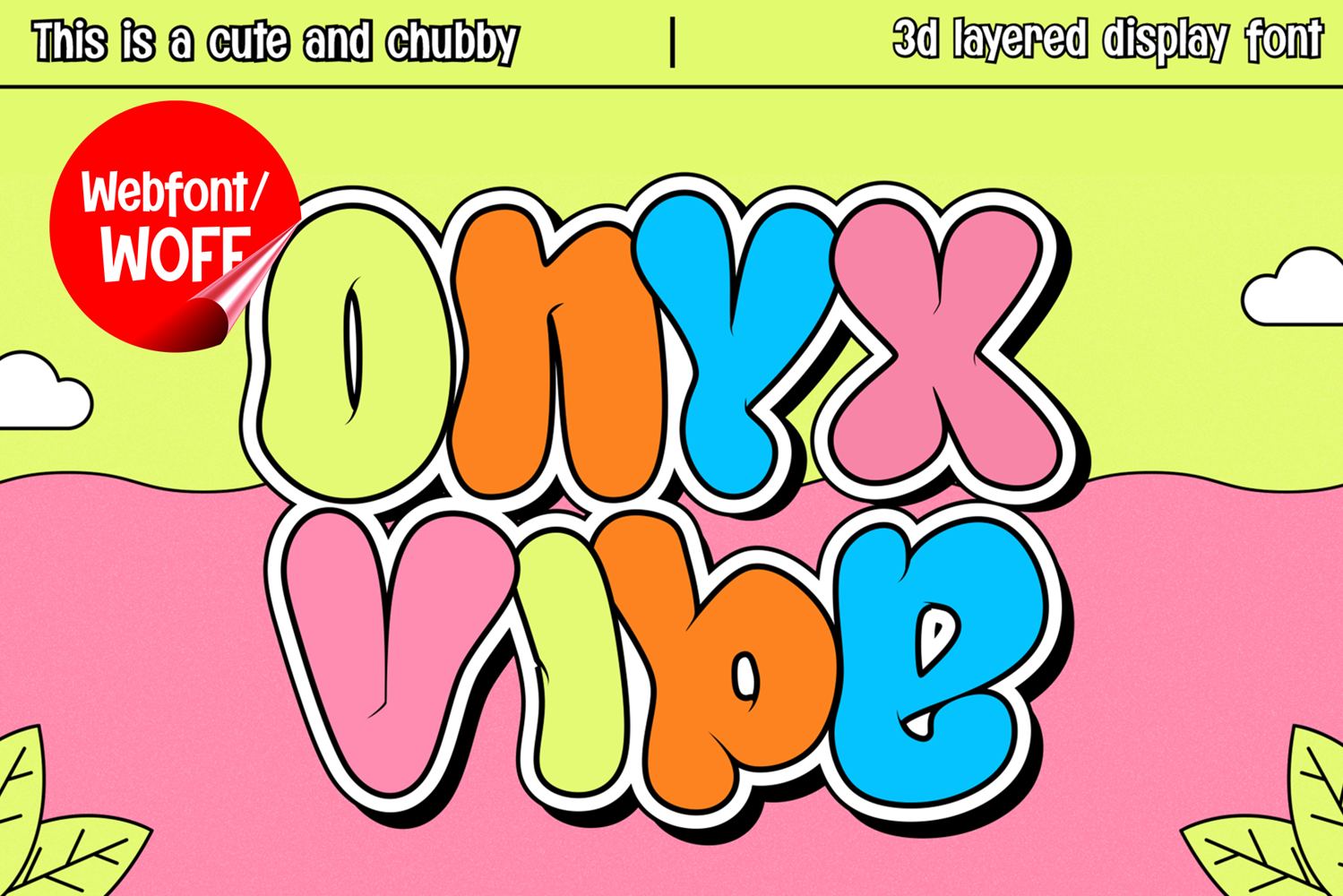
Onyx Vibe | Cute Layered 3D Webfont for Fun Creative Design
Onyx Vibe is a cute layered 3D webfont designed to bring playful creativity and dimensional style into modern website design. Inspired by bubbly typography, cartoon lettering, and layered display aesthetics, this font features rounded shapes and eye-catching depth that create a cheerful and engaging visual identity. It is an excellent choice for projects that aim to deliver a fun, stylish, and visually appealing typographic appearance.
Onyx Vibe includes a complete set of uppercase characters designed with cute layered 3D aesthetics. The letterforms feature chunky curves, playful proportions, and dimensional layering that create a lively and modern appearance. These characteristics make it ideal for headlines, banners, hero sections, product displays, and featured content where a cheerful and eye-catching visual style is needed.
In addition to letters, the font includes numbers and punctuation, allowing flexible usage across various parts of a website. It works well for children’s websites, toy branding, candy shops, lifestyle blogs, party invitations, creative campaigns, and social media graphics. Each character maintains a consistent layered 3D style, ensuring a cohesive and unified visual identity throughout the design.
With multilingual support, Onyx Vibe includes a wide range of accented characters, making it suitable for international websites and global audiences. This ensures content remains clear and visually consistent across different languages while preserving the playful and decorative aesthetic.
The cute layered 3D style of Onyx Vibe makes it especially suitable for kids’ brands, entertainment projects, colorful digital campaigns, cartoon-themed websites, and family-oriented businesses. Its dimensional structure and rounded forms create a joyful atmosphere that helps websites stand out in visually competitive environments. The layered depth adds visual excitement while maintaining a soft and friendly appearance.
Despite its decorative and playful appearance, Onyx Vibe is designed with readability in mind. The spacing and proportions are carefully balanced to ensure clarity, particularly in display sizes. This allows designers to use the font effectively for impactful headings and short content without sacrificing usability.
Onyx Vibe is a webfont that combines cute layered aesthetics with modern digital performance. Its rounded forms, dimensional depth, and cheerful character create a distinctive typographic presence that enhances website design. For projects that require a fun, colorful, and visually engaging display font, Onyx Vibe offers a versatile and delightful solution.